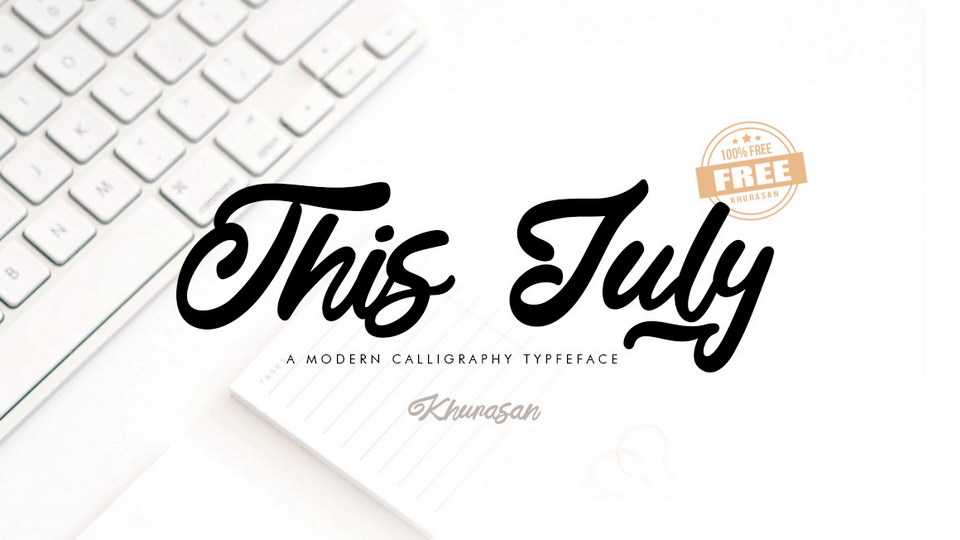
Download This July font, a wonderful modern calligraphy script with a charming soft flow. This July script is perfect for branding, wedding decoration, social media, apparel, prints, quotes and more.